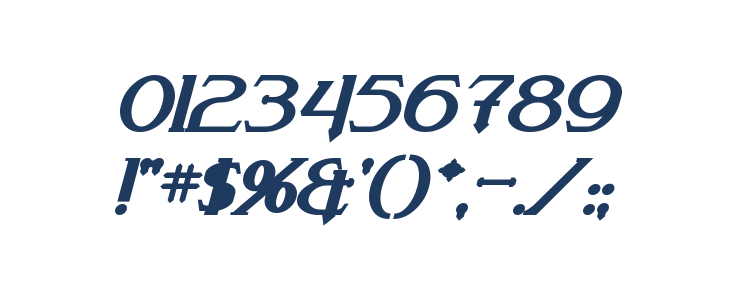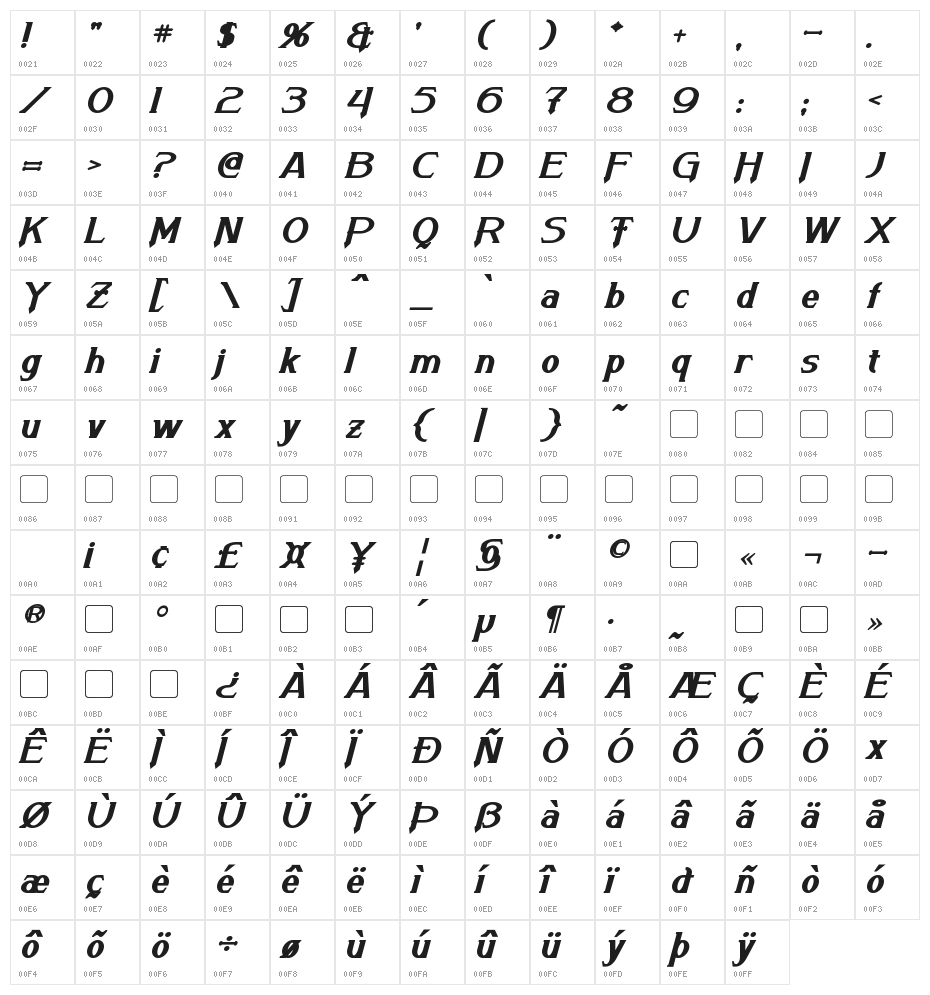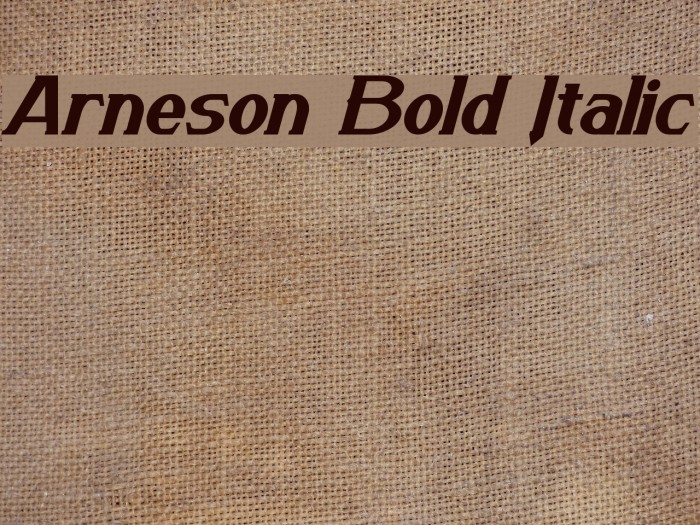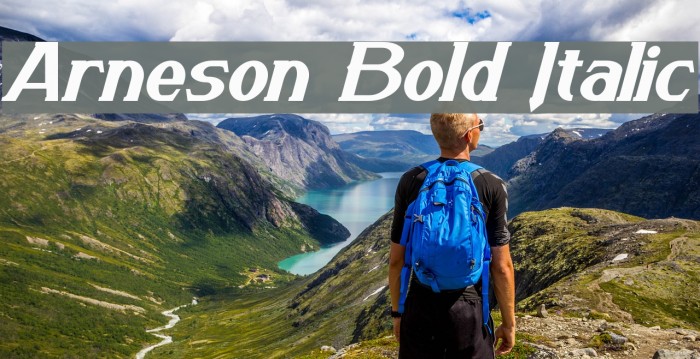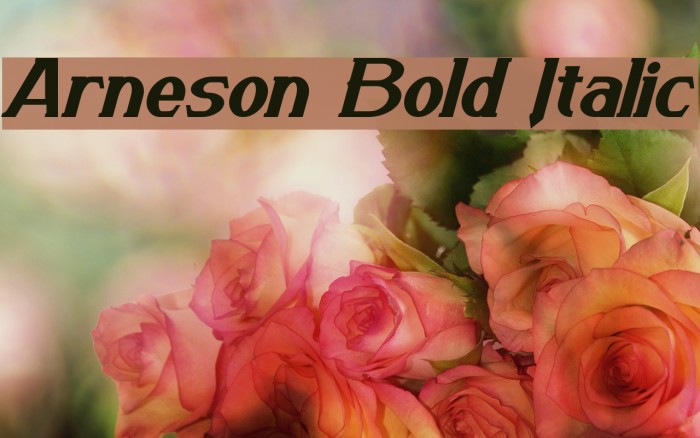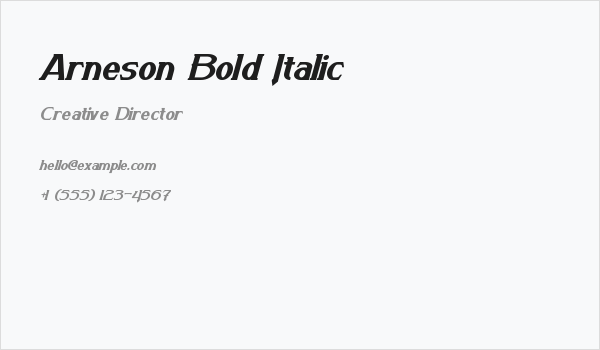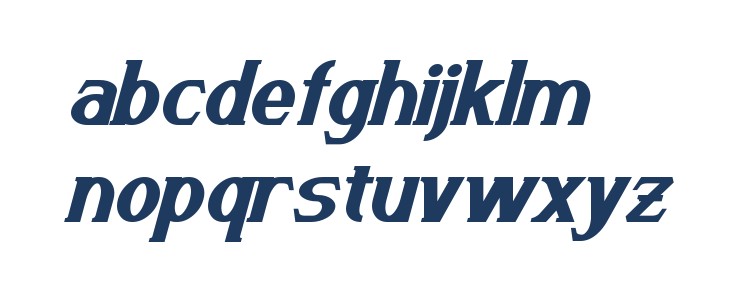
Arneson Bold Italic Font
Arneson Bold Italic Description
This font exhibits a bold and italicized style, characterized by its dynamic and forward-leaning slant. The strokes are thick and consistent, providing a strong visual impact. The uppercase letters are distinct with sharp angles and a sense of movement, while the lowercase letters maintain a cohesive flow. Numbers are equally bold, ensuring readability and uniformity across different contexts. Special characters are designed to match the overall aesthetic, adding versatility to the font's application. The font's boldness and italic nature make it suitable for attention-grabbing headlines and impactful designs.